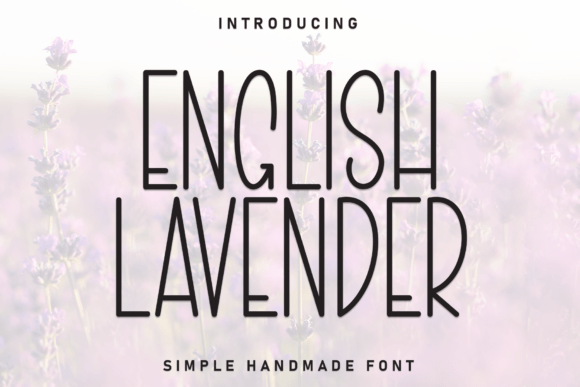
Introducing English Lavender Font: The Perfect Blend of Simplicity and Friendliness
In the world of typography, fonts play a crucial role in conveying the tone and personality of a brand or design. Among the numerous fonts available, English Lavender stands out as a casual and neat display font that combines simplicity with a friendly, approachable vibe. In this article, we’ll delve into the features and benefits of English Lavender Font, exploring its unique characteristics, uses, and why it’s an excellent choice for your design needs.
What is English Lavender Font?
English Lavender is a modern display font designed to capture the essence of handwritten typography with a polished finish. Its clean lines, balanced letterforms, and subtle rounded edges create a warm and inviting aesthetic that’s perfect for a wide range of design applications. This font is ideal for designers seeking a typography solution that exudes friendliness and approachability.
Key Features of English Lavender Font
- Clean Lines: English Lavender boasts clean lines that provide clarity and precision, making it perfect for headlines, titles, and short paragraphs.
- Balanced Letterforms: The font features well-balanced letterforms that ensure harmony and consistency, creating a visually appealing effect.
- Subtle Rounded Edges: The subtle rounded edges add a touch of warmth and friendliness to the font, making it perfect for designs that require a personal and approachable feel.
- Modern Handwritten Typography: English Lavender combines the elegance of traditional typography with the casualness of handwritten fonts, resulting in a unique and captivating aesthetic.
- Polished Finish: The font’s polished finish gives it a professional and refined look, suitable for high-end branding, packaging, and digital content.
Uses of English Lavender Font
English Lavender Font is a versatile typography solution that can be used in various design applications, including:
- Branding: Create a lasting impression with English Lavender’s warm and inviting aesthetic, perfect for logos, business cards, and brand guidelines.
- Headlines: Use English Lavender to create attention-grabbing headlines that convey a sense of friendliness and approachability.
- Packaging: Add a touch of elegance and sophistication to your packaging designs with English Lavender’s clean lines and polished finish.
- Digital Content: Enhance your digital content, such as blog posts, social media graphics, and email newsletters, with English Lavender’s clear and readable typography.
Benefits of Using English Lavender Font
English Lavender Font offers several benefits that make it an excellent choice for designers:
- Warm and Inviting Aesthetic: English Lavender’s unique blend of simplicity and friendliness creates a warm and inviting aesthetic that engages audiences.
- Versatility: The font’s versatility makes it suitable for various design applications, from branding and packaging to digital content.
- Clarity and Readability: English Lavender’s clean lines and balanced letterforms ensure clarity and readability, making it perfect for body text and headlines.
- Time-Saving: With English Lavender, designers can save time and effort, as the font’s polished finish and elegant aesthetic eliminate the need for extensive design tweaks.
Tips for Using English Lavender Font Effectively
To get the most out of English Lavender Font, consider the following tips:
- Pair with Complementary Fonts: Combine English Lavender with complementary fonts to create visual interest and hierarchy in your designs.
- Experiment with Colors: Try out different color schemes to find the perfect match for your design, taking into account the font’s warm and inviting aesthetic.
- Adjust Font Sizes: Adjust font sizes to create visual hierarchy and emphasize key messages in your design.
- Use for Headlines and Titles: English Lavender is perfect for headlines and titles, so use it to create attention-grabbing text that draws audiences in.
English Lavender Font is a versatile and elegant typography solution that combines simplicity with a friendly, approachable vibe. Its clean lines, balanced letterforms, and subtle rounded edges make it perfect for a wide range of design applications, from branding and packaging to digital content. With its warm and inviting aesthetic, English Lavender is sure to engage audiences and elevate your designs to the next level.
FAQs About English Lavender Font
- What is English Lavender Font? English Lavender Font is a casual and neat display font that combines simplicity with a friendly, approachable vibe.
- What are the key features of English Lavender Font? English Lavender boasts clean lines, balanced letterforms, subtle rounded edges, and a polished finish.
- What are the uses of English Lavender Font? English Lavender can be used for branding, headlines, packaging, and digital content.
- What are the benefits of using English Lavender Font? English Lavender offers a warm and inviting aesthetic, versatility, clarity and readability, and time-saving benefits.